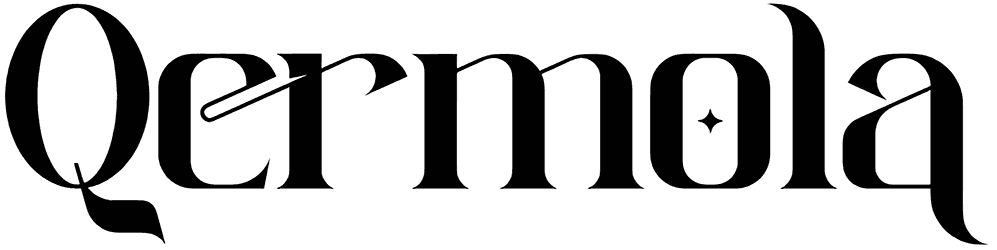
Qermola Font
When you are working on a unique design that needs an eye-catching vibe, a retro font like this one would be a perfect selection. The characters are all available, and you can use this elegant font for any text. Apply the Qermola font to your creative design like a unique café board and be cool.